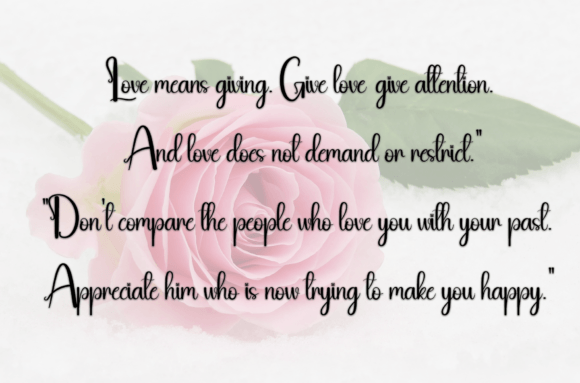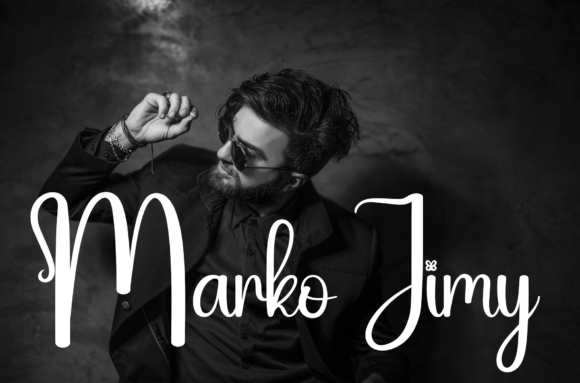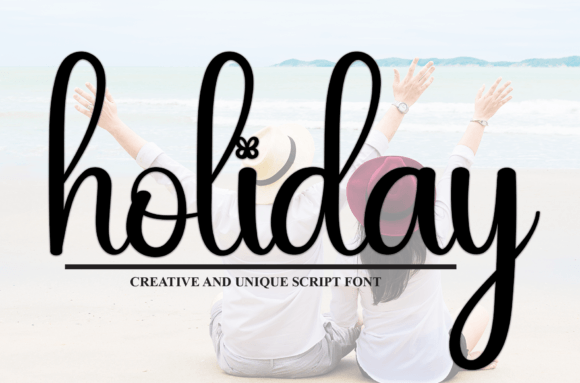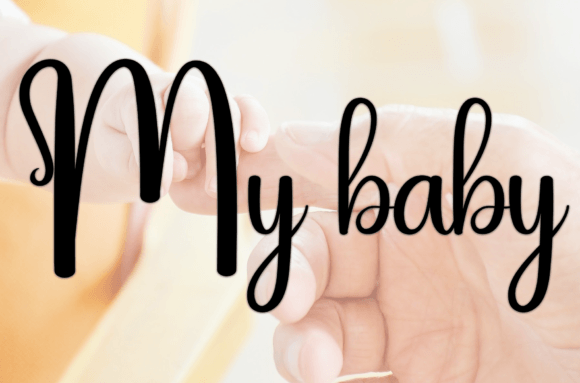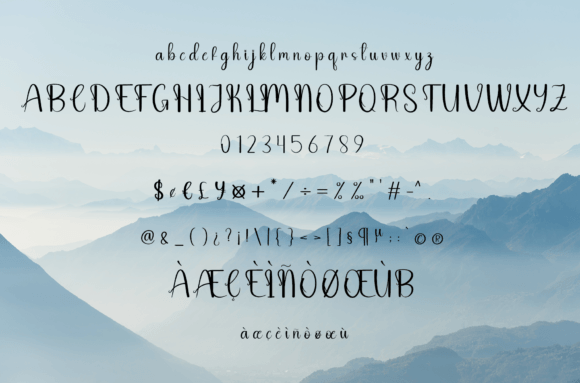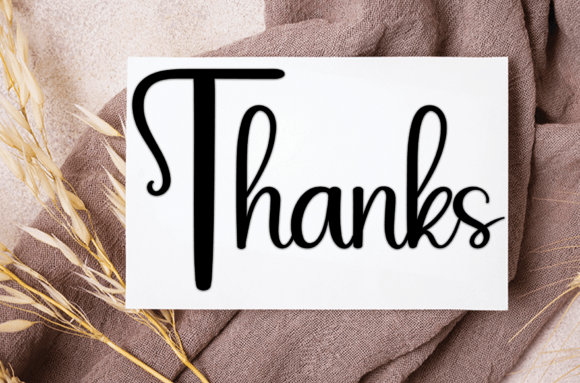
Baby Barbie Font: The Sweet and Friendly Handwritten Font for Your Creative Projects
Are you a designer or crafter looking for a font that can add a touch of sweetness and friendliness to your creative projects? Look no further than the Baby Barbie Font! This adorable handwritten font is perfect for writing wedding invitations, cards, or any other design that might need a fun and playful touch.
What is Baby Barbie Font?
Baby Barbie Font is a sweet and friendly handwritten font that is designed to bring a touch of whimsy and playfulness to your designs. With its creative and cute style, this font is ideal for a variety of projects, from wedding invitations and cards to posters, flyers, and more.
Key Features of Baby Barbie Font
- Handwritten style: Baby Barbie Font has a beautiful handwritten style that is perfect for adding a personal touch to your designs.
- Sweet and friendly: This font has a sweet and friendly feel that is sure to delight your audience.
- Cute and playful: With its cute and playful style, Baby Barbie Font is perfect for designs that need a fun touch.
- Versatile: This font is versatile and can be used for a variety of projects, from wedding invitations to posters and flyers.
Why Use Baby Barbie Font?
There are many reasons why you should consider using Baby Barbie Font for your creative projects. Here are just a few:
- Add a personal touch: With its handwritten style, Baby Barbie Font can add a personal touch to your designs that is sure to delight your audience.
- Stand out from the crowd: This font is unique and playful, making it the perfect way to stand out from the crowd and make your designs more memorable.
Tips and Tricks for Using Baby Barbie Font
Here are a few tips and tricks to help you get the most out of Baby Barbie Font:
- Use it for headings: Baby Barbie Font is perfect for headings and titles, where its playful style can really shine.
- Pair it with other fonts: Try pairing Baby Barbie Font with other fonts to create a unique and interesting look.
- Experiment with colors: Don’t be afraid to experiment with different colors to really make Baby Barbie Font pop.
In conclusion, Baby Barbie Font is a sweet and friendly handwritten font that is perfect for adding a touch of whimsy and playfulness to your creative projects. With its creative and cute style, this font is ideal for a variety of projects, from wedding invitations and cards to posters, flyers, and more. So why not give it a try and see how Baby Barbie Font can transform your designs?